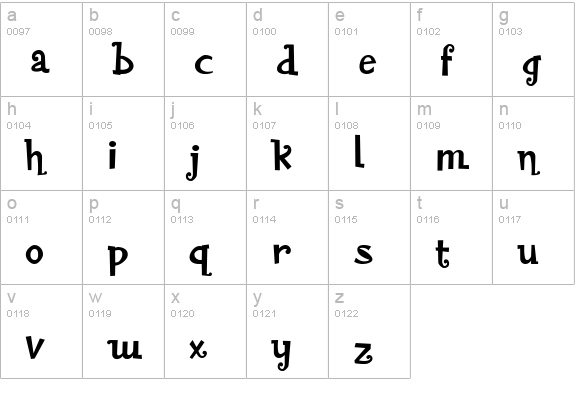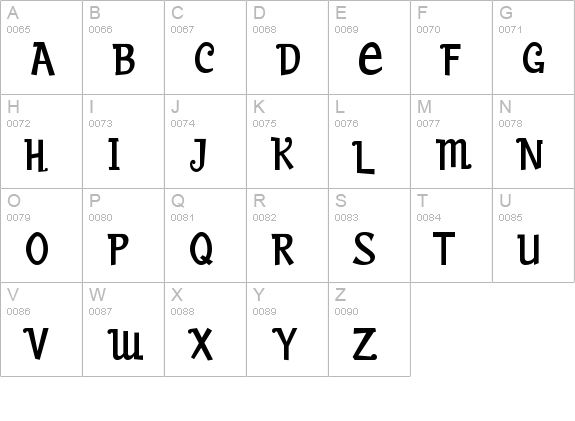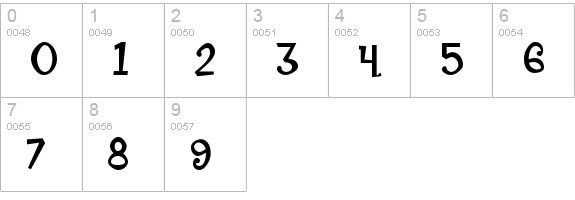
BaileywickFestiveJF font is a delightful and whimsical typeface that exudes a festive charm perfect for adding a touch of joy to your design projects. Its playful curves and swirly details make it ideal for crafting invitations, greeting cards, posters, and more for special occasions and celebrations. What's even better is that BaileywickFestiveJF font is completely free to download at FontsMarket.com! This means you can easily access this charming font and incorporate it into your designs without any cost. With its cheerful and festive vibes, BaileywickFestiveJF font is sure to bring a sense of merriment and cheer to your creative endeavors. Download it now and let your imagination run wild with this delightful typeface!